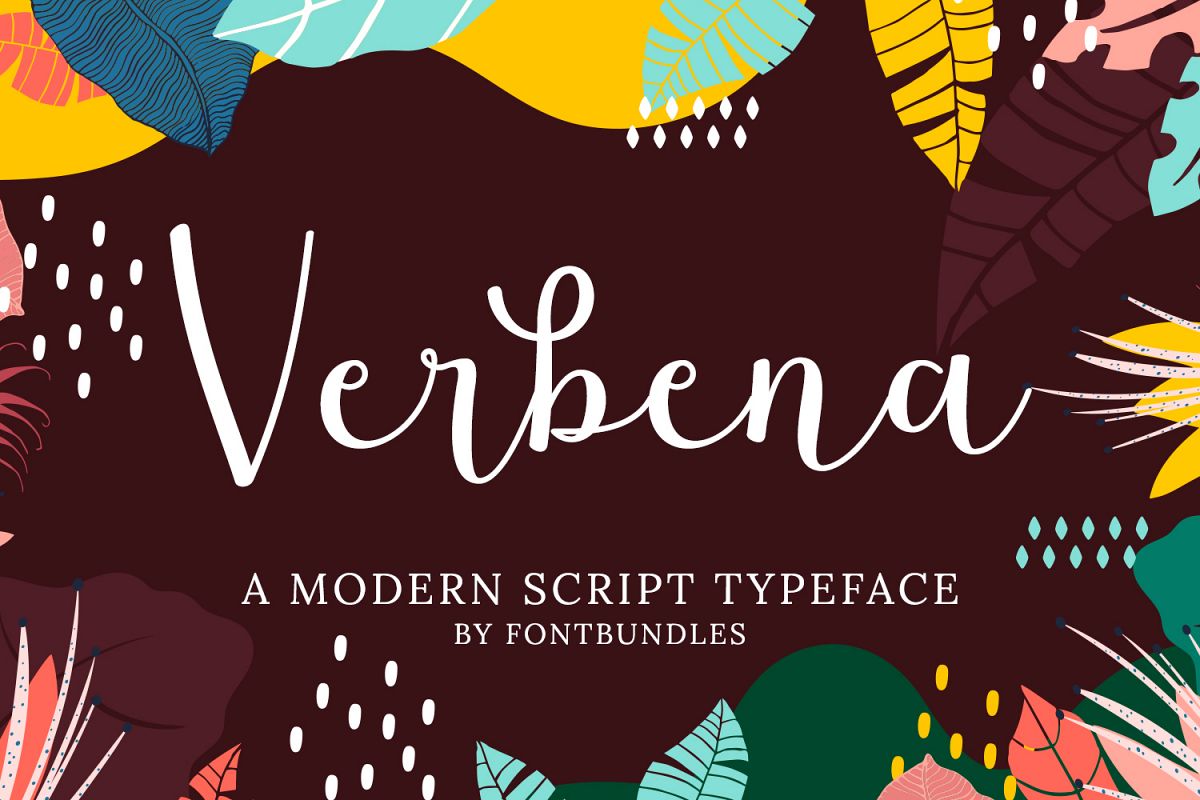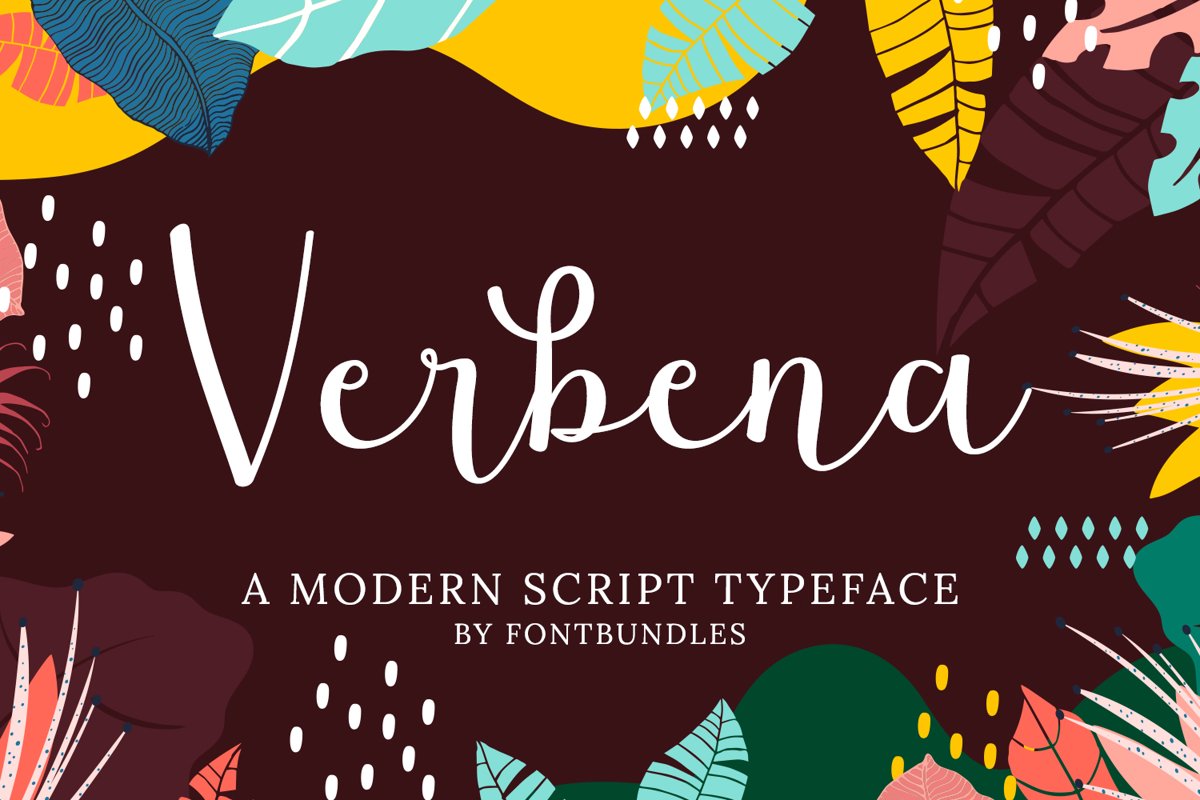
Verbena is a modern script typeface. Perfect for elegant logos, upscale packaging, wedding stationery, websites, and any other projects requiring a handwritten and luxurious touch.